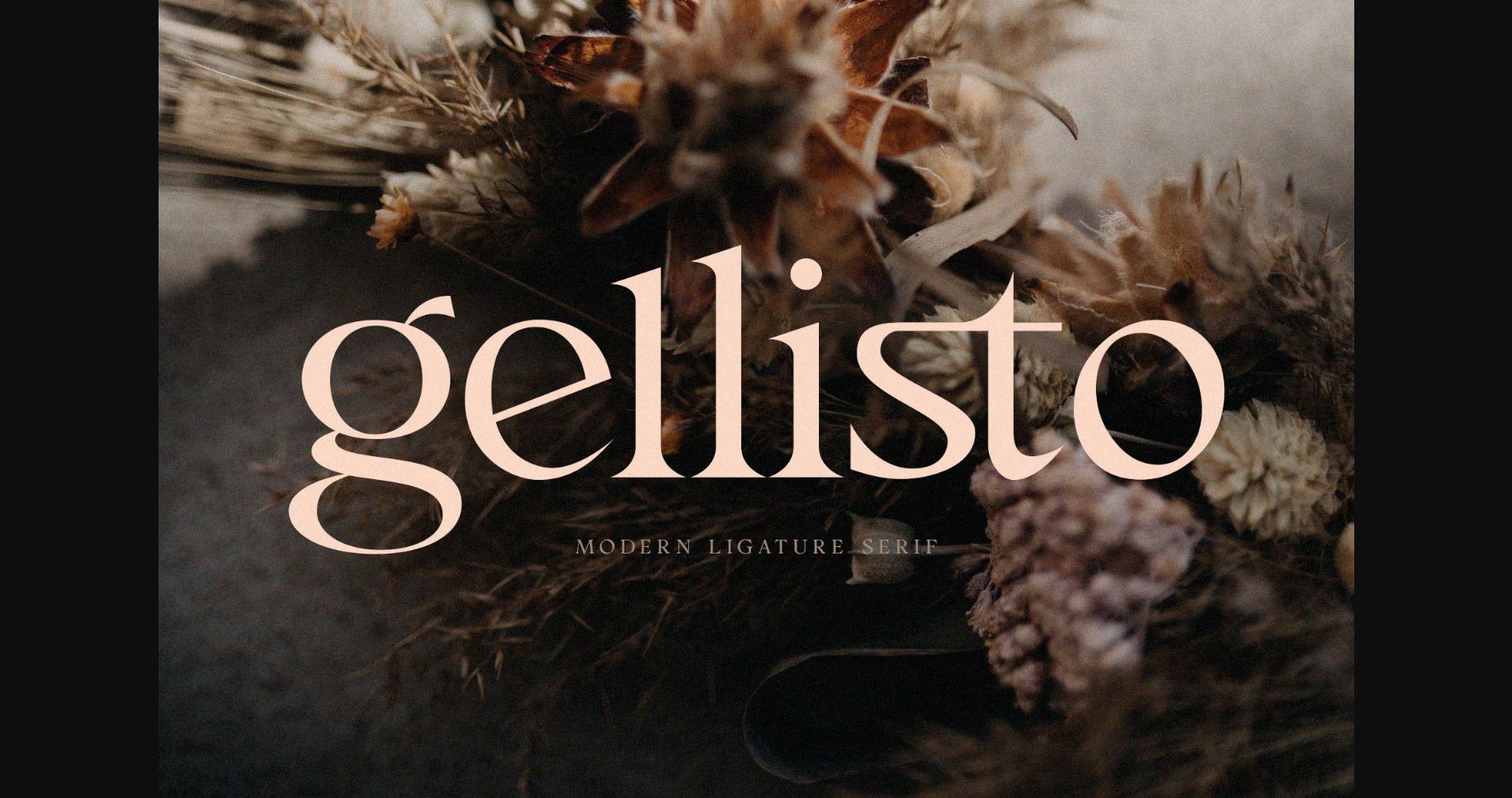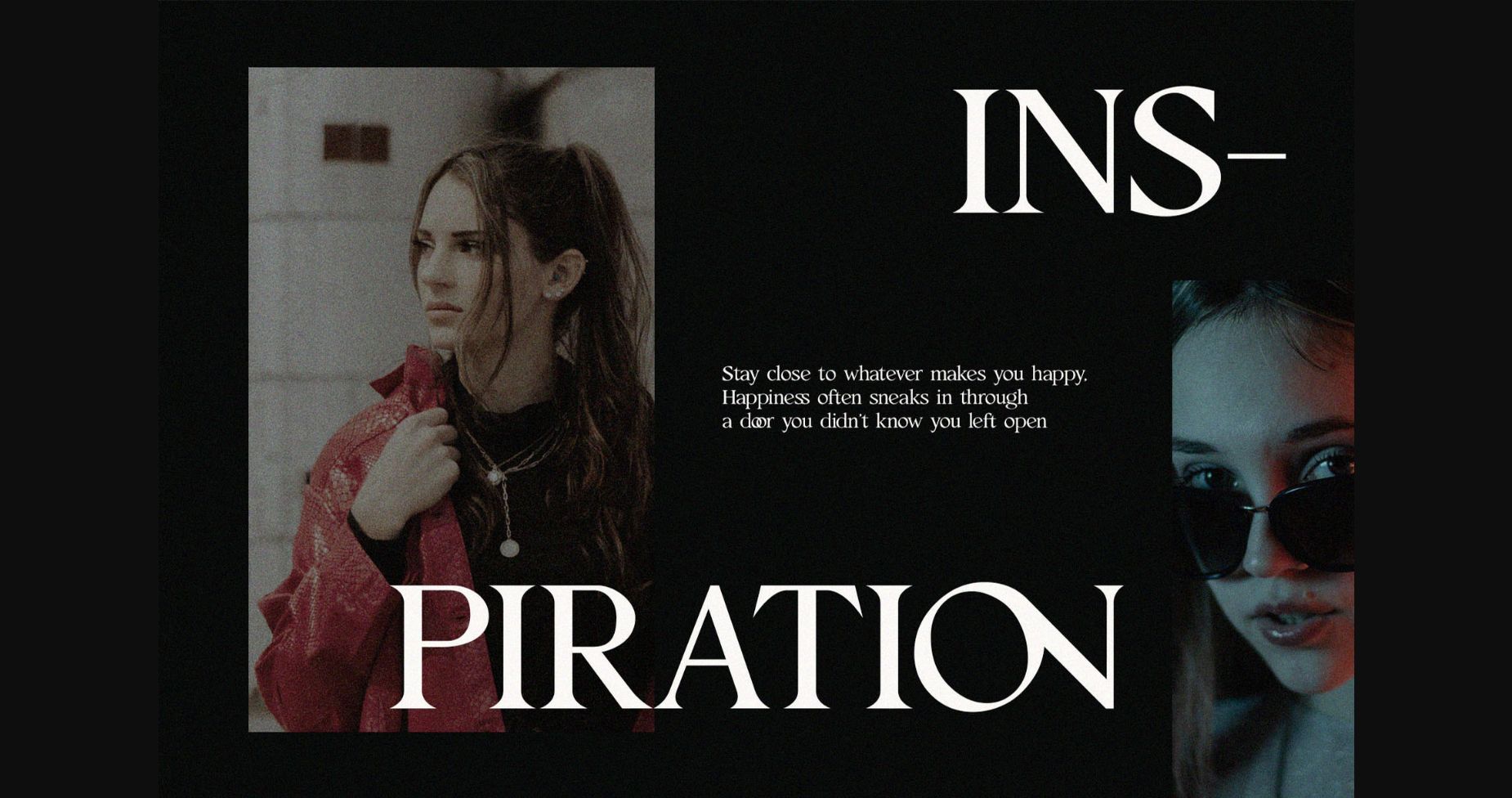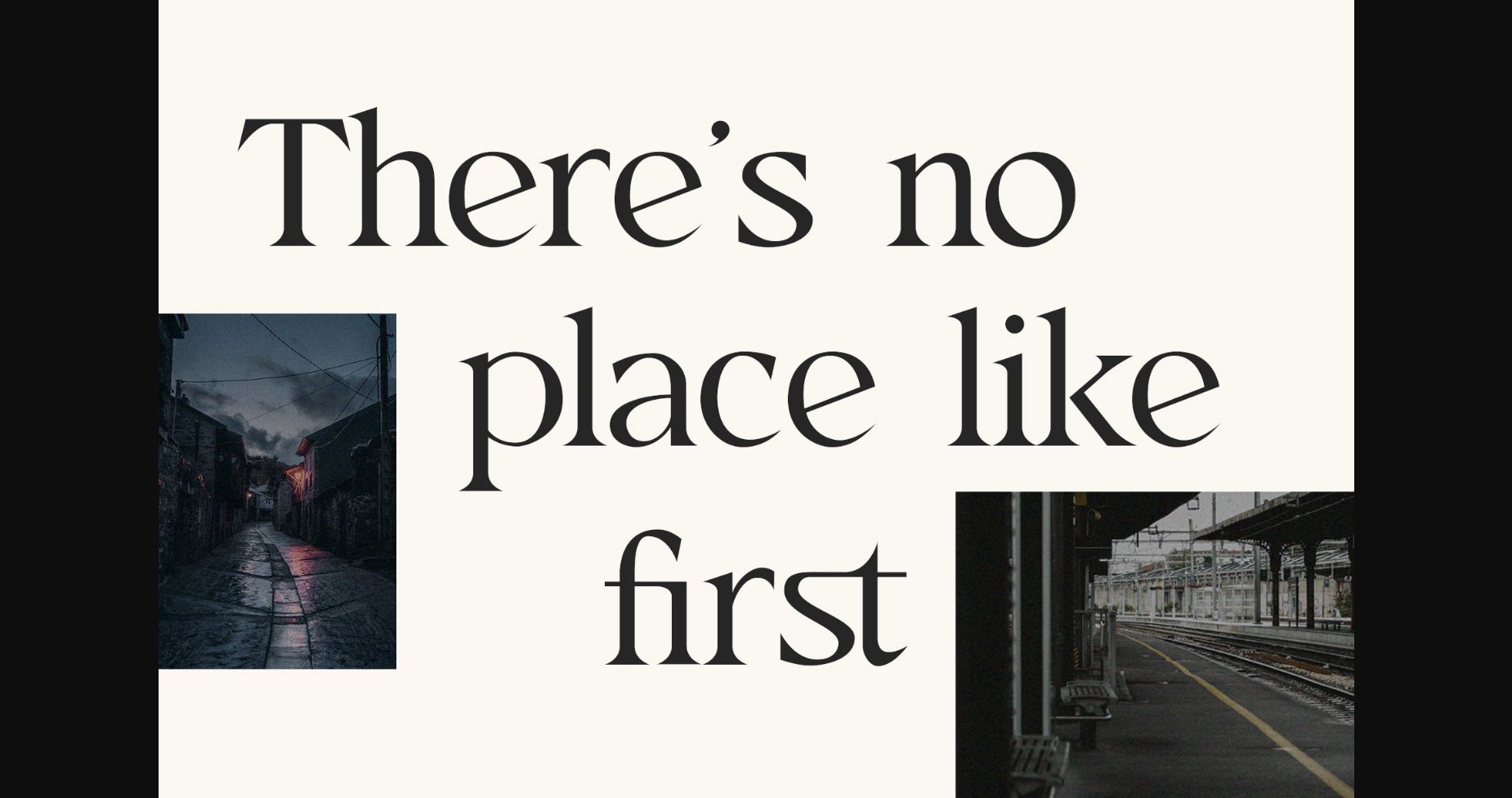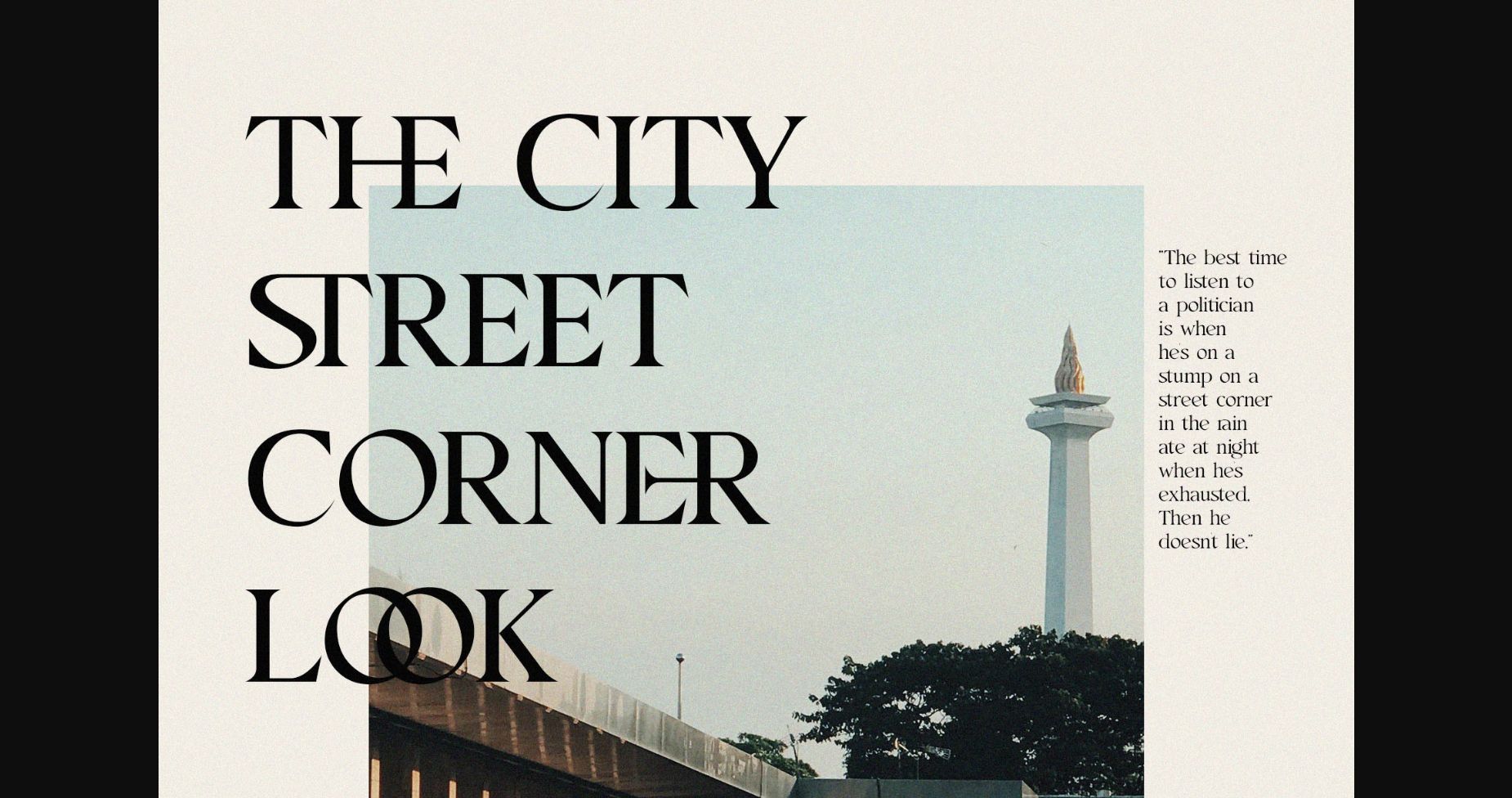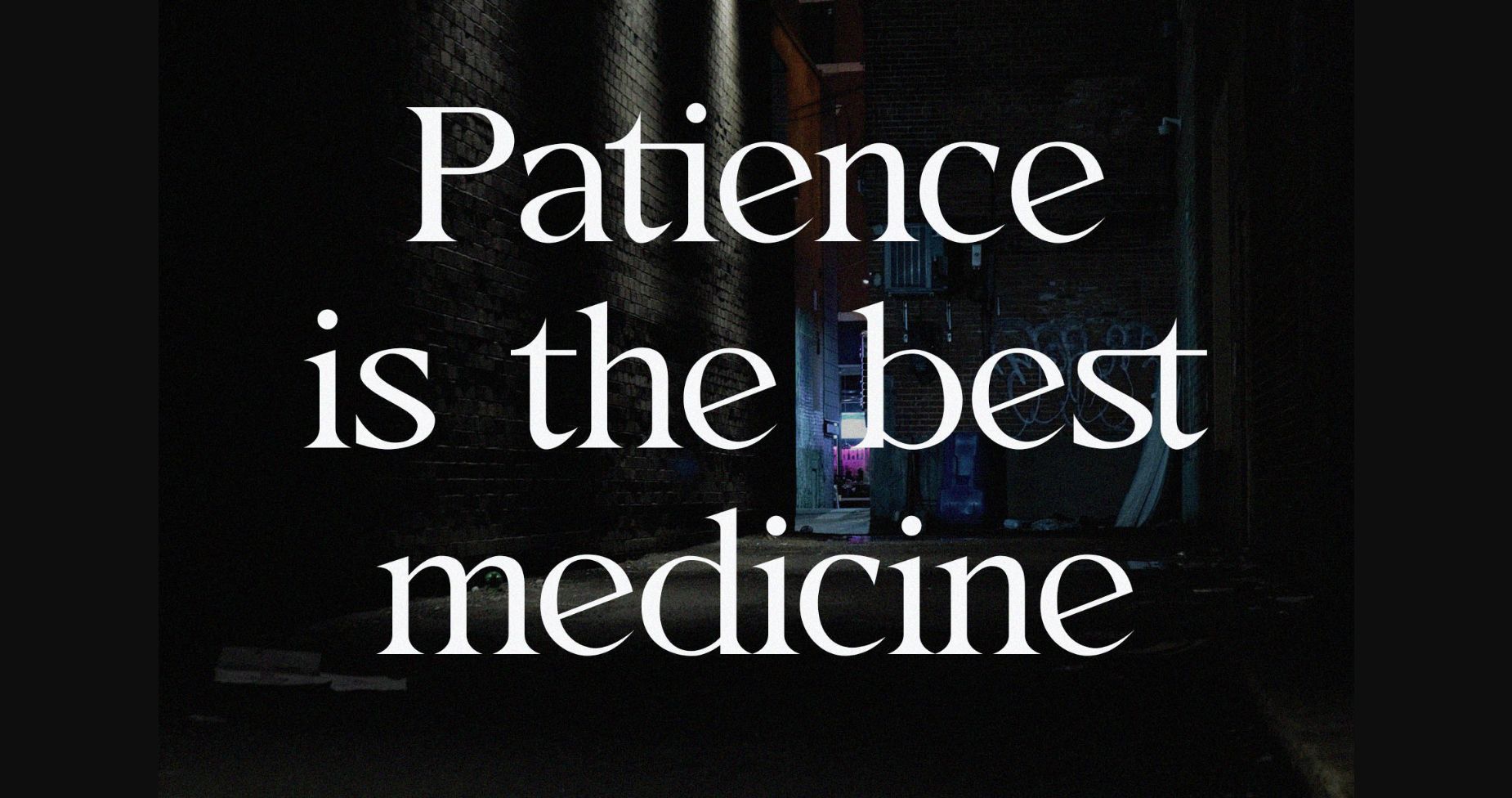
Gellisto Font
About Gellisto Font
Gellisto is a modern, elegant, and classy sans serif typeface best used for headings, logos, branding, magazines, product packaging, invitations, and more. Add it to your collection and find your inspiration with Gellisto!